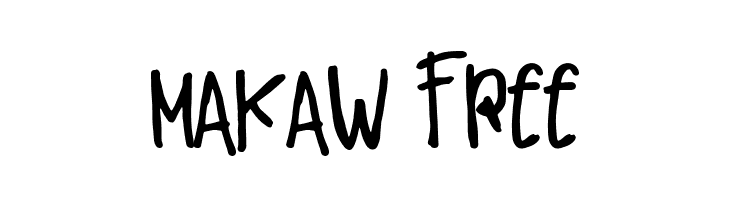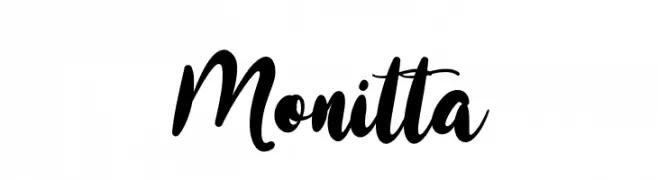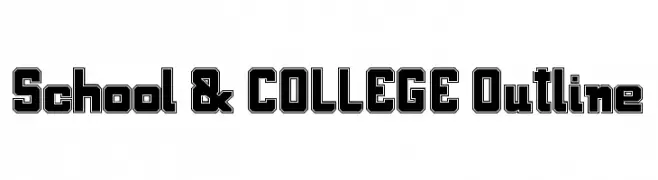
An artistic and decorative font with flowing, interconnected strokes and elegant swirls.
A playful, bold handwritten font with irregular strokes and a casual style.
A bold, expressive script font with high contrast and ornate letterforms.
A bold, geometric sans-serif font with a unique black highlight effect.
A bold, geometric font with a modern and decorative style.
A bold, brush-style handwritten font with an expressive and artistic flair.
A bold, geometric sans-serif font with high contrast and framed uppercase letters.
A bold, elegant script font with flowing, connected characters.
A whimsical, heart-themed decorative font with a playful, script-like style.
A bold, outlined font with a collegiate style, perfect for impactful designs.